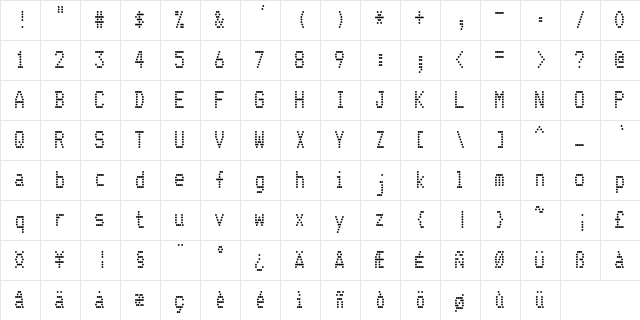
Dotrice Condensed Regular
| Foundry | His Deeds Are Dust |
| Designer | Paul Flo Williams |
Design Context for Dotrice Condensed Typeface
Dotrice Condensed celebrates the constraints of early digital type, turning pixel geometry into a distinctive and immediately recognisable style.
A natural choice for retro game titles, chiptune music branding, 8-bit UI, and digital nostalgia projects.
Pro Tip: Pair Dotrice Condensed with flat colour palettes and simple geometric UI elements to reinforce its digital aesthetic.